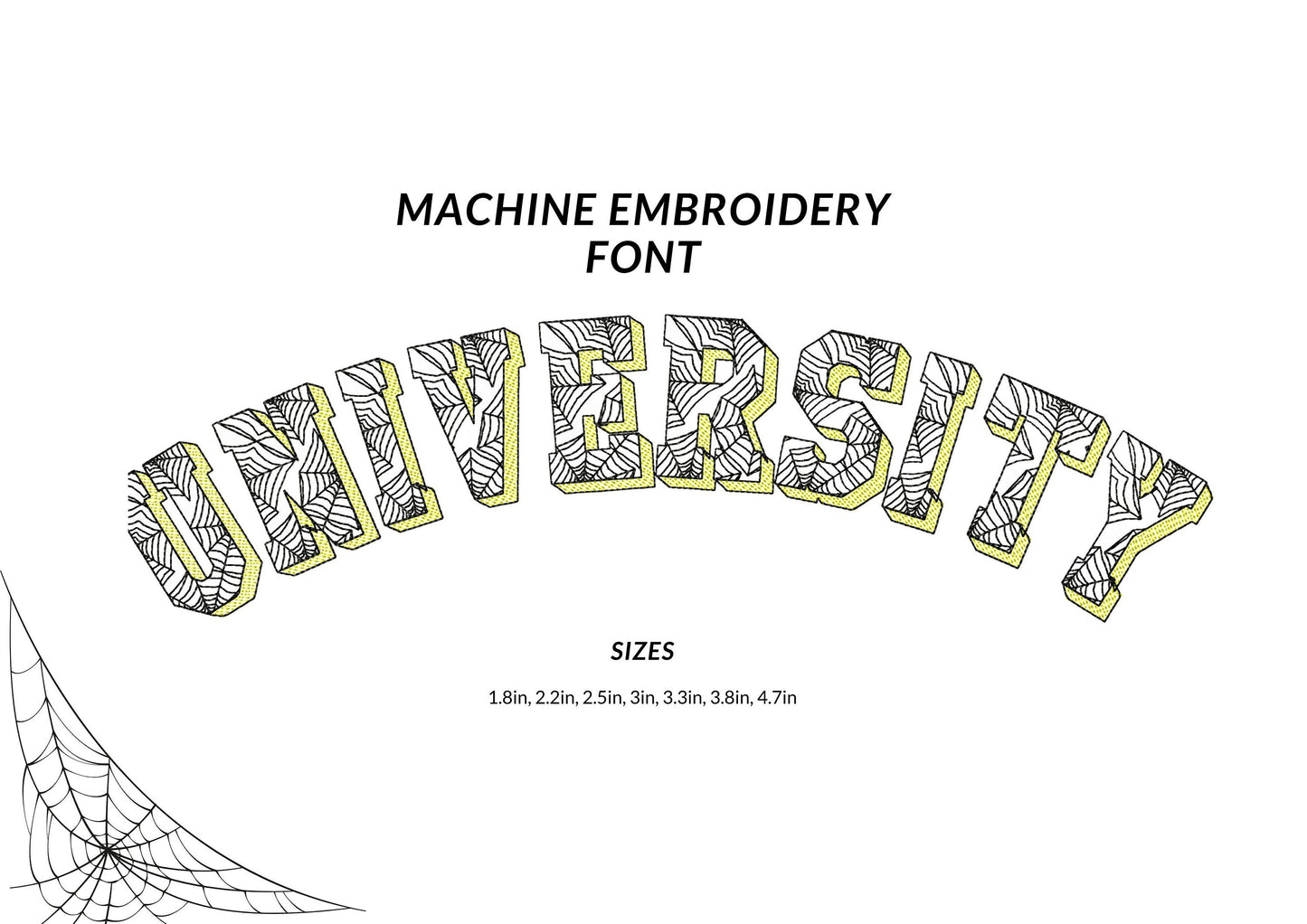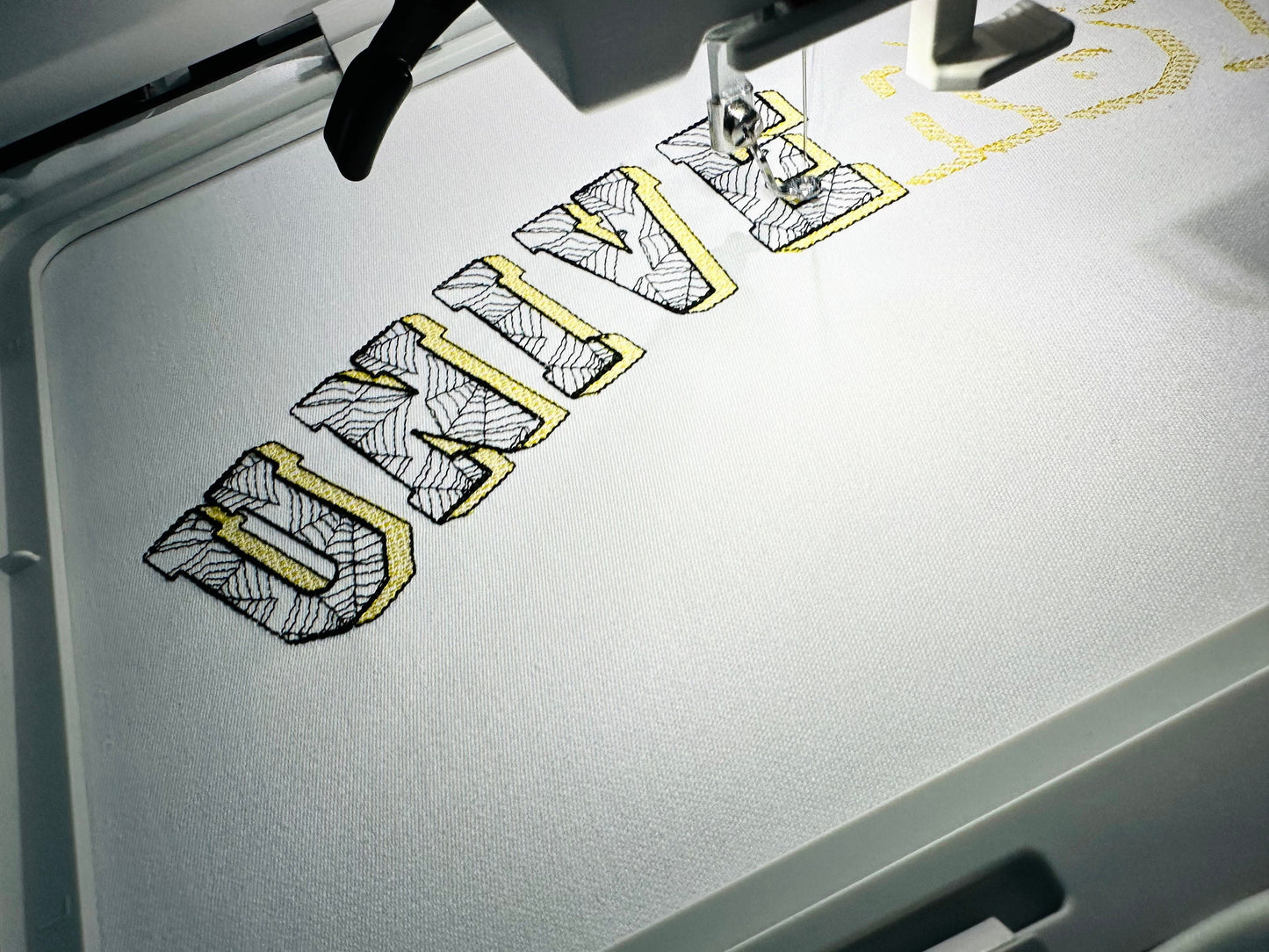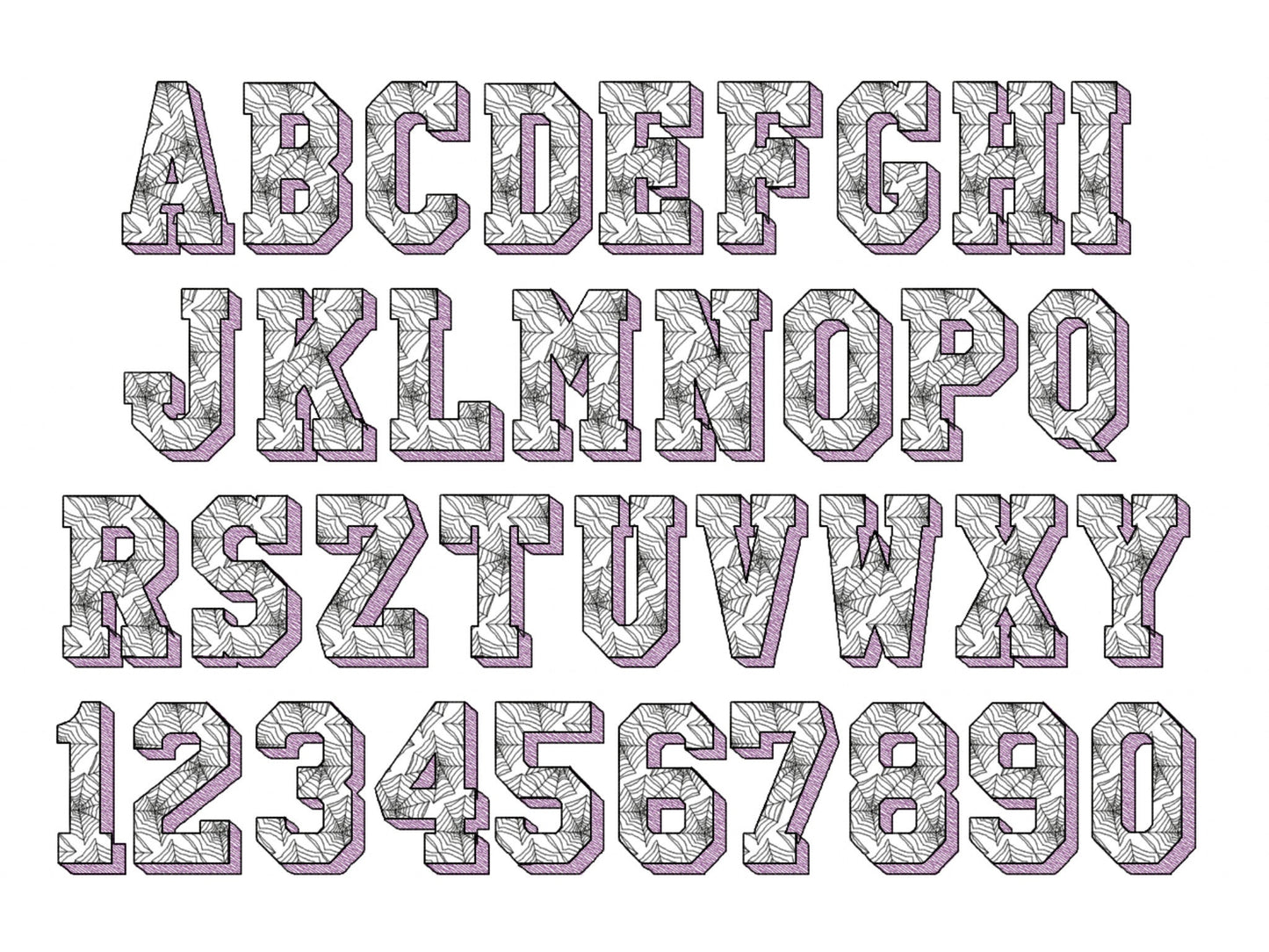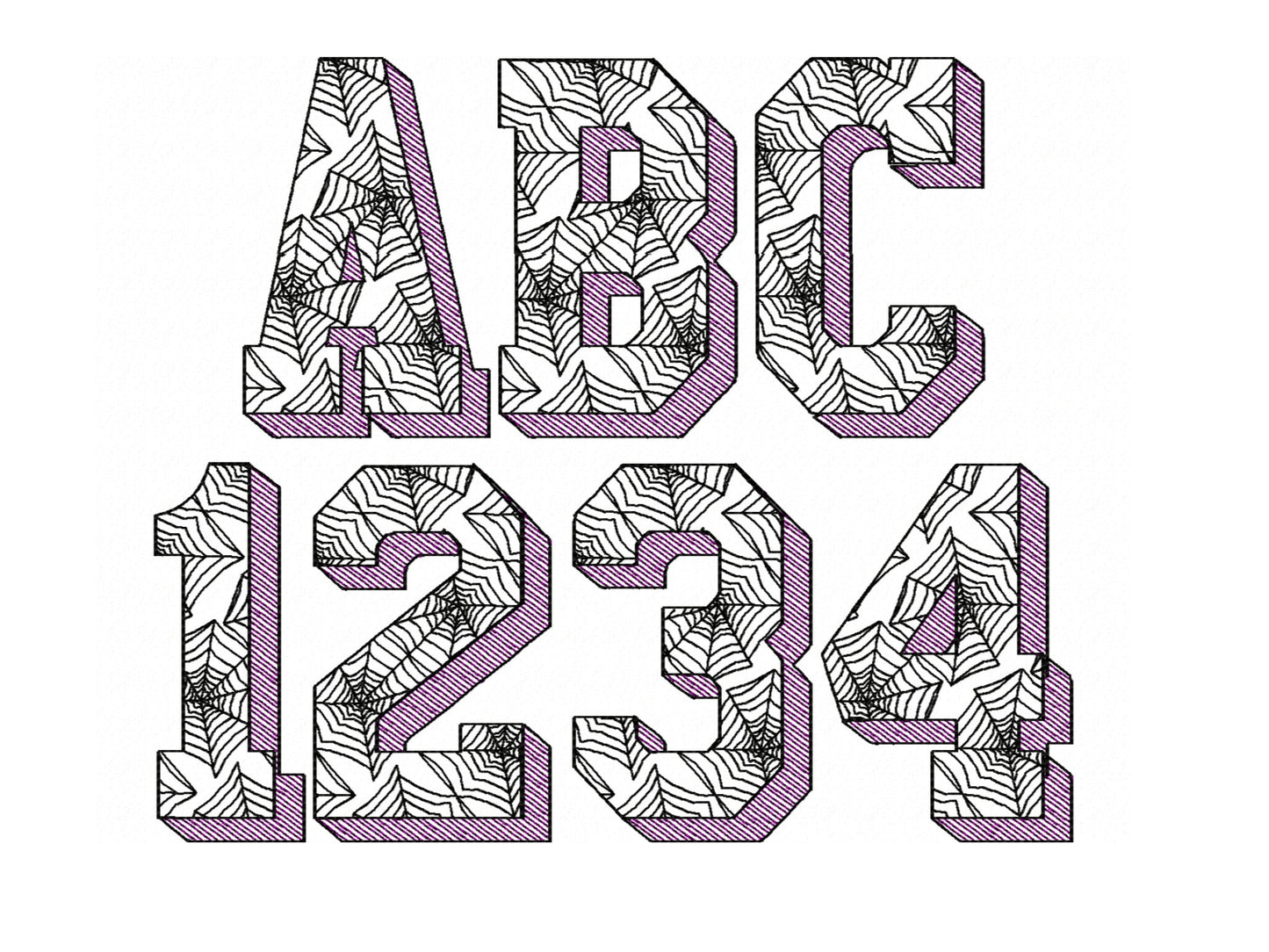
Halloween Spiderweb Shadow Font
Or click to open the linkA Halloween spider web font with a shadow, for spooky names and 'BOO' on shirts, bags and pillows.
A light stitch design: the spider web pattern is part of the letters and the fabric shows through. Uppercase A to Z and numbers 0 to 9 in seven sizes: 1.8, 2.2, 2.5, 3, 3.3, 3.8 and 4.7 inches.
- Spider web shadow font
- Uppercase A-Z and numbers 0-9
- 7 sizes, 1.8 to 4.7 in